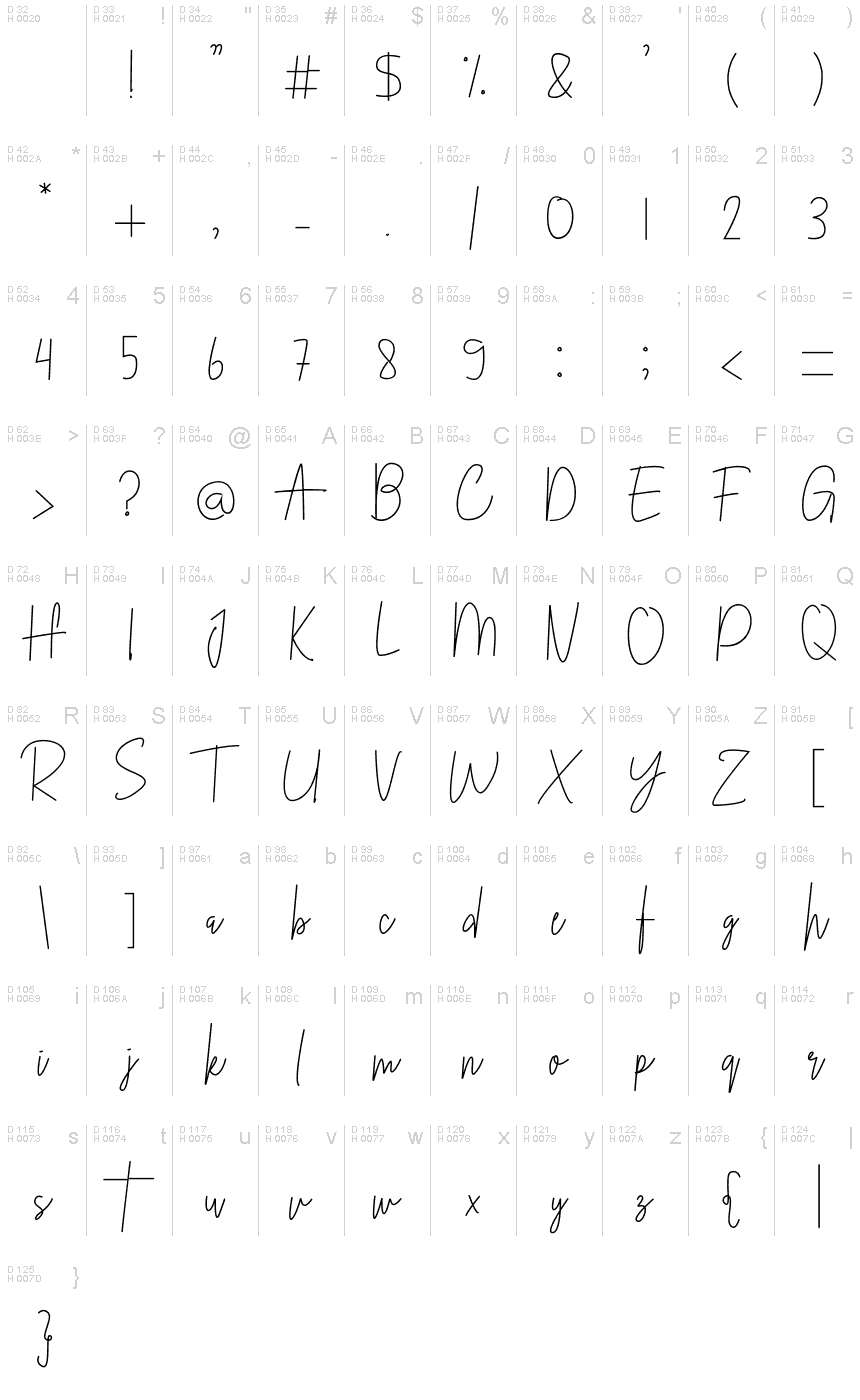
Christian
Christian, a captivating handwritten font by share font, brings a touch of elegance and sophistication to your designs.
With its extra-light weight, this font exudes a delicate charm that is perfect for wedding invitations, romantic quotes, and feminine branding projects. The graceful curves and unique character variations make Christian an ideal choice for creating stunning logos or adding a personal touch to any creative endeavor.
Let Christian elevate your designs with its handwritten allure and create an atmosphere of refined beauty.